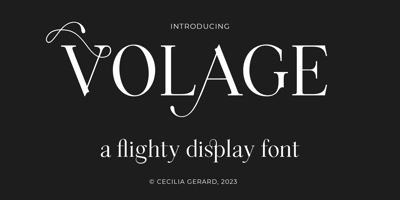
Volage Display
Volage Display font
Volage Display Font Family was designed by CECILIA GERARD and published by Cecilia Gérard Type . Volage Display contains 1 styles and family package options. Introducing Volage, a clean, elegant yet flighty display serif. Inspired by french literature masterpiece “Dangerous Liaisons” by Pierre Choderlos de Laclos, Volage is a drama typeface with stunning alternates. Sharp shapes marry tails and ligatures, which are chasing each other without never really meeting…